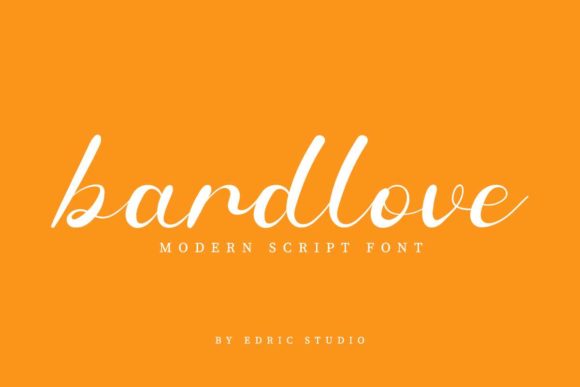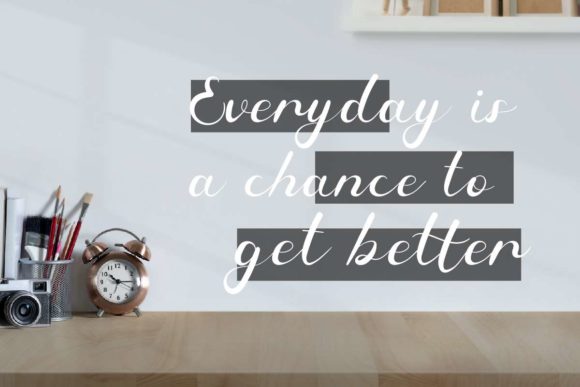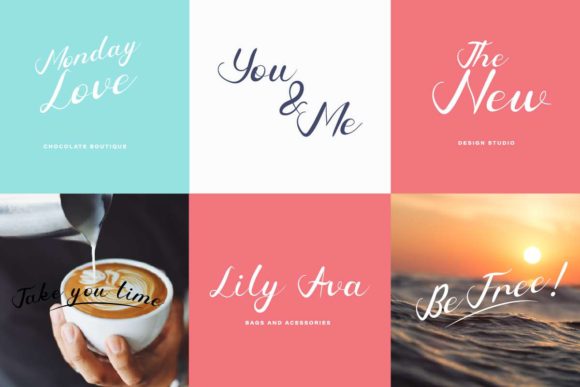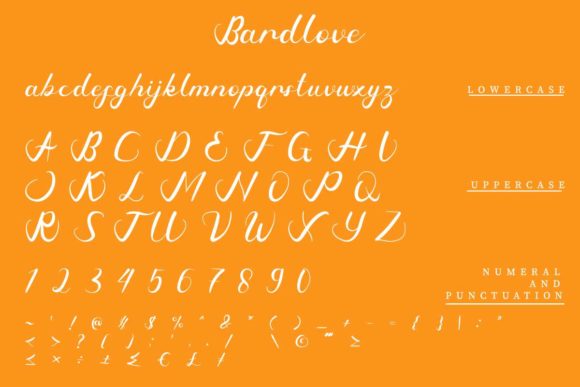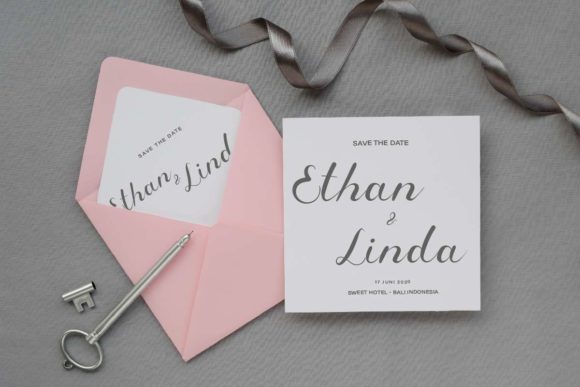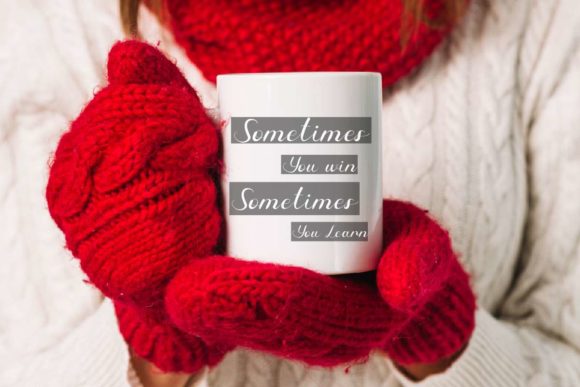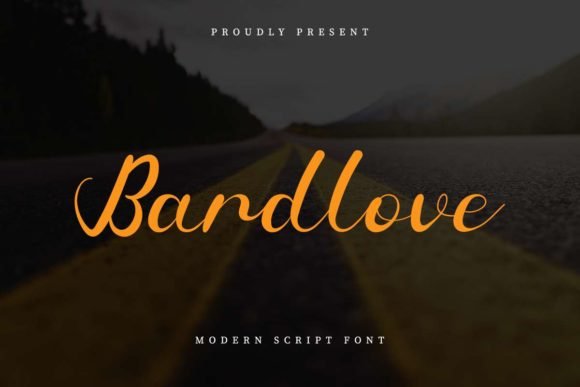
Falling in Love with the Perfect Font
Have you ever stumbled upon a font that just clicks with your creative vision? For designers, it’s that moment of pure joy when everything comes together, and your project starts to shine. It’s the perfect blend of style, elegance, and personality. This is exactly what the Bardlove Font offers – a unique combination of classy calligraphic influences and a fresh, contemporary feel.
Designed to become a true favorite among designers, the Bardlove Font is perfect for anyone looking to elevate their projects to new heights. Its versatility makes it ideal for a wide range of applications, from elegant invitations to modern logos. Whether you’re a seasoned pro or just starting out, this font is sure to become your go-to choice for any project that requires a touch of sophistication and charm.
Bardlove Font Key Features
- Font Family: Bardlove Font is a script font family designed for elegant and luxurious typography.
- Unique Characteristics: Features a unique blend of elegance and playfulness, making it ideal for high-end branding, invitations, and special events.
- Font Pairing: Designed to pair well with sans-serif fonts, creating a striking contrast and visual interest in designs.
Bardlove Font Review
I recently had the chance to work with the Bardlove Font, and I must say it’s a lovely addition to any design project. Here’s what I like about it:
- ✨ The font has a beautiful, elegant feel to it. The curves are smooth and the letterforms are well-balanced.
- ✨ The font is highly versatile and can be used for a variety of projects, from book covers to magazine articles.
- ✨ The font comes in a range of weights, from light to bold, making it easy to adjust the font size and style to suit your needs.
- ⚠️ The font may not be suitable for use in small text sizes, as the letters can become difficult to read.
- ⚠️ The font may not be the best choice for projects that require a lot of bold or italic text, as the bold and italic styles can become difficult to distinguish.
Overall, I’m quite impressed with the Bardlove Font. While it may have a few limitations, its beauty and versatility make it a great addition to any design project. I’d definitely recommend it to anyone looking for a elegant, high-quality font.
Bardlove Font: A Practical Application Guide
To get the most out of the Bardlove font, use it sparingly and in combination with other fonts. The font’s unique design makes it perfect for headings and titles. Experiment with different font sizes and colors to create a visually appealing design.
The Bardlove font is perfect for creative projects, such as logos, posters, and social media graphics. It’s also great for headings and titles in presentations and documents. Use it to add a touch of elegance and sophistication to your designs.
Alternatives to Bardlove Font for Designers
Playfair Display is an elegant, high-end serif font ideal for creating luxurious and sophisticated designs. It features intricate details and luxurious flair, making it perfect for use in wedding invitations, luxury branding, and high-end magazines.
Comparison to Bardlove Font: While both fonts have a luxurious feel, Playfair Display is more elaborate and ornate, whereas Bardlove Font is more minimalist and modern.
Carolyna Pro is a sophisticated serif font with a vintage flair, perfect for use in designs that require elegance and sophistication. It’s ideal for creating invitations, branding, and packaging for high-end products.
Comparison to Bardlove Font: Carolyna Pro has a more vintage feel compared to Bardlove Font, which is more modern and sleek.
Great Vibes is a modern script font with a relaxed, casual feel, perfect for creating designs that require a touch of elegance and sophistication. It’s ideal for use in wedding invitations, branding, and packaging for creative and artistic businesses.